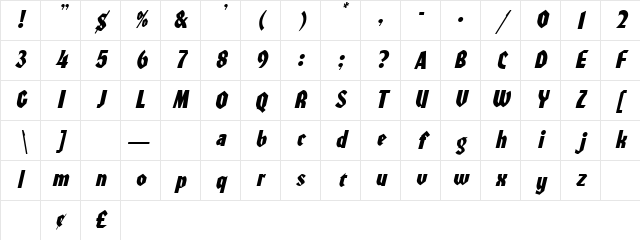
Rodin is a composed and adaptable typeface that performs quietly and consistently across a wide range of design contexts. The slanted form adds forward momentum and visual energy.